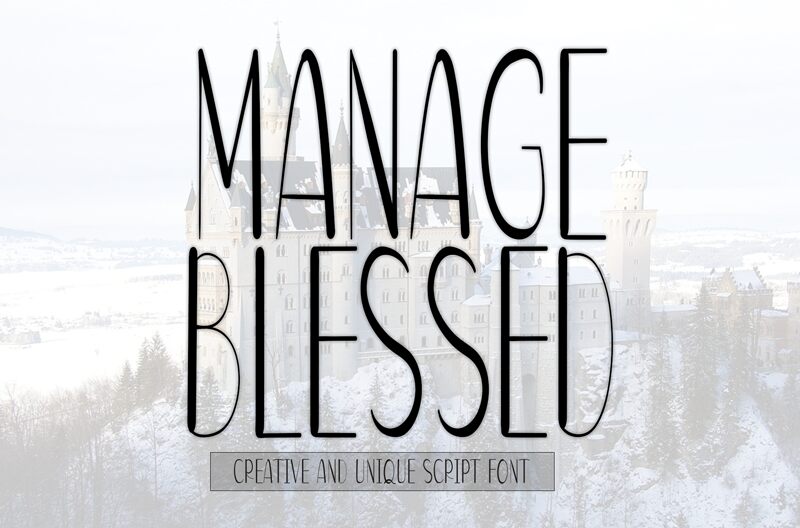
Manage Blessed font by creatype designer is a free script font offering luminous, modern letters. This artistic and minimalist font comes elongated and expressive to add new dimensions to your visual projects. Add sophistication to every part of your design and embrace the new opportunities presented by this contemporary style.
Infuse your branding, invitations, posters, titles, and greeting cards with new life. The font is also an ideal addition to apparel items, stamps and badges, packaging designs, and coloring books with handwritten lettering.
This font features a classy calligraphic influence while maintaining a contemporary and fresh appeal. Its versatility makes it suitable for a wide range of creative applications, including letterheads, titles, and stationery.